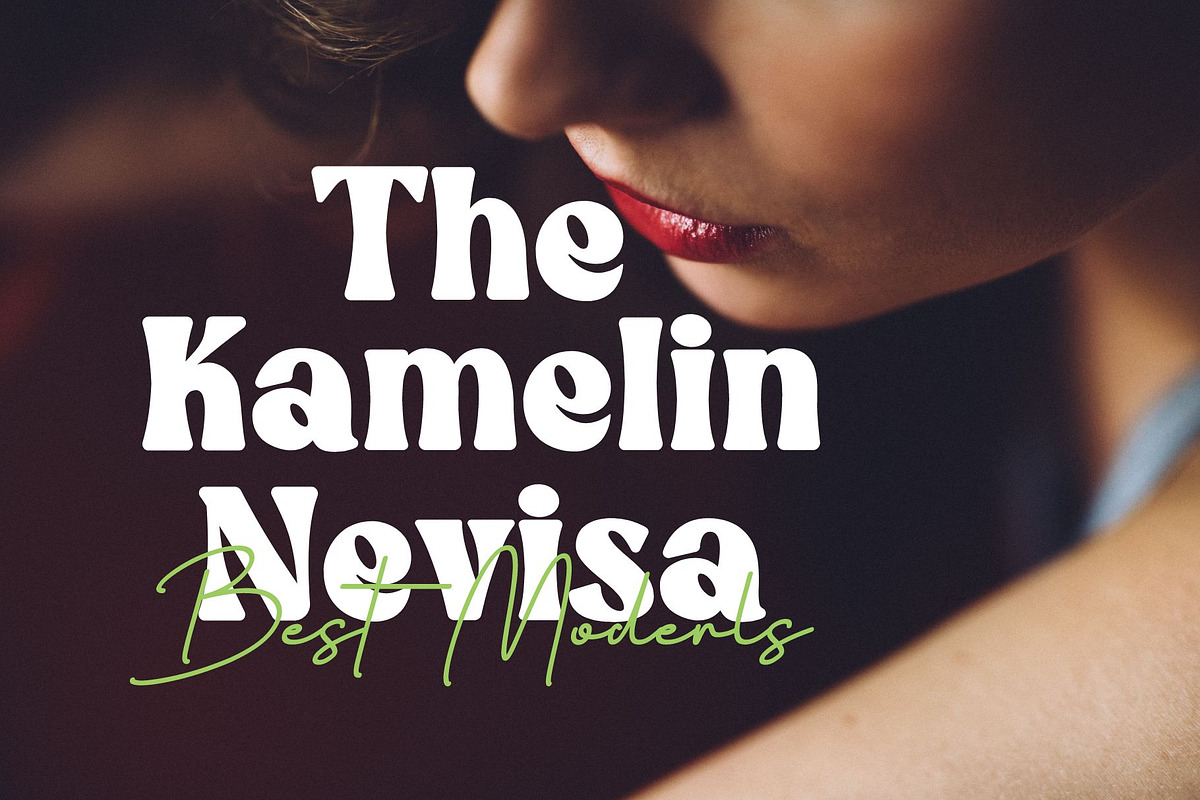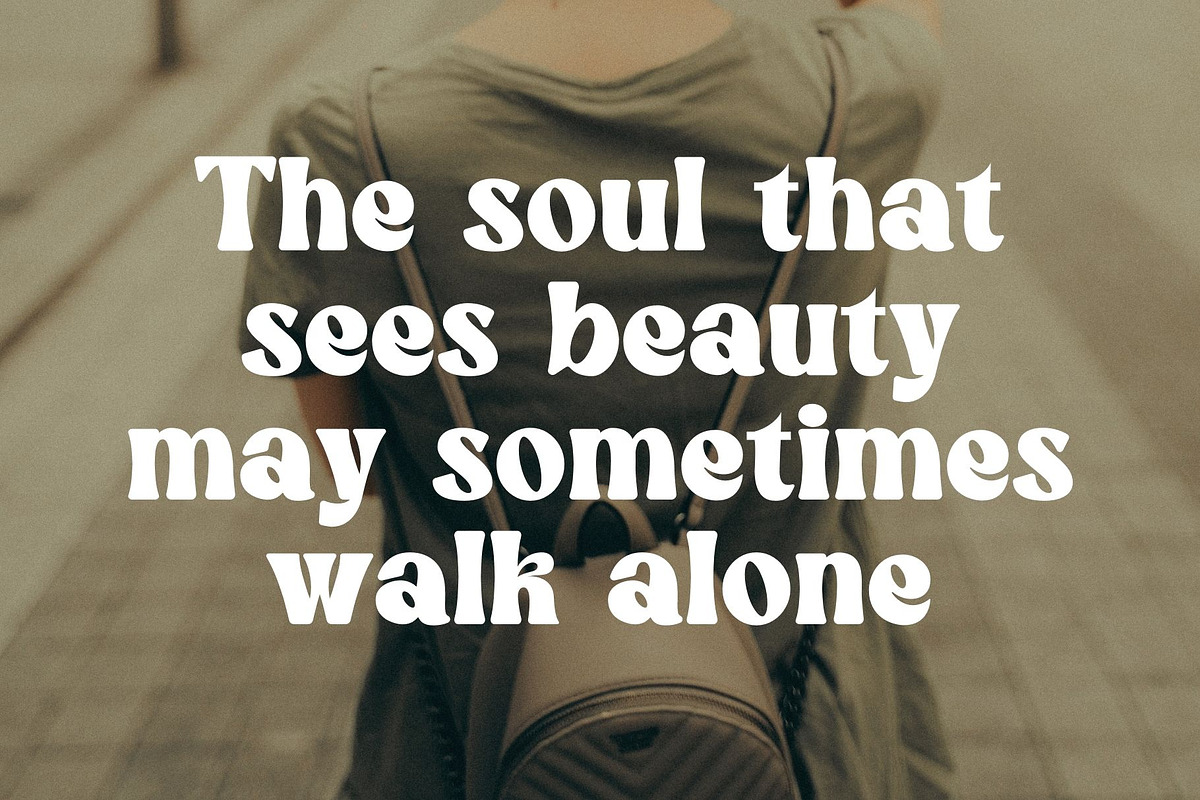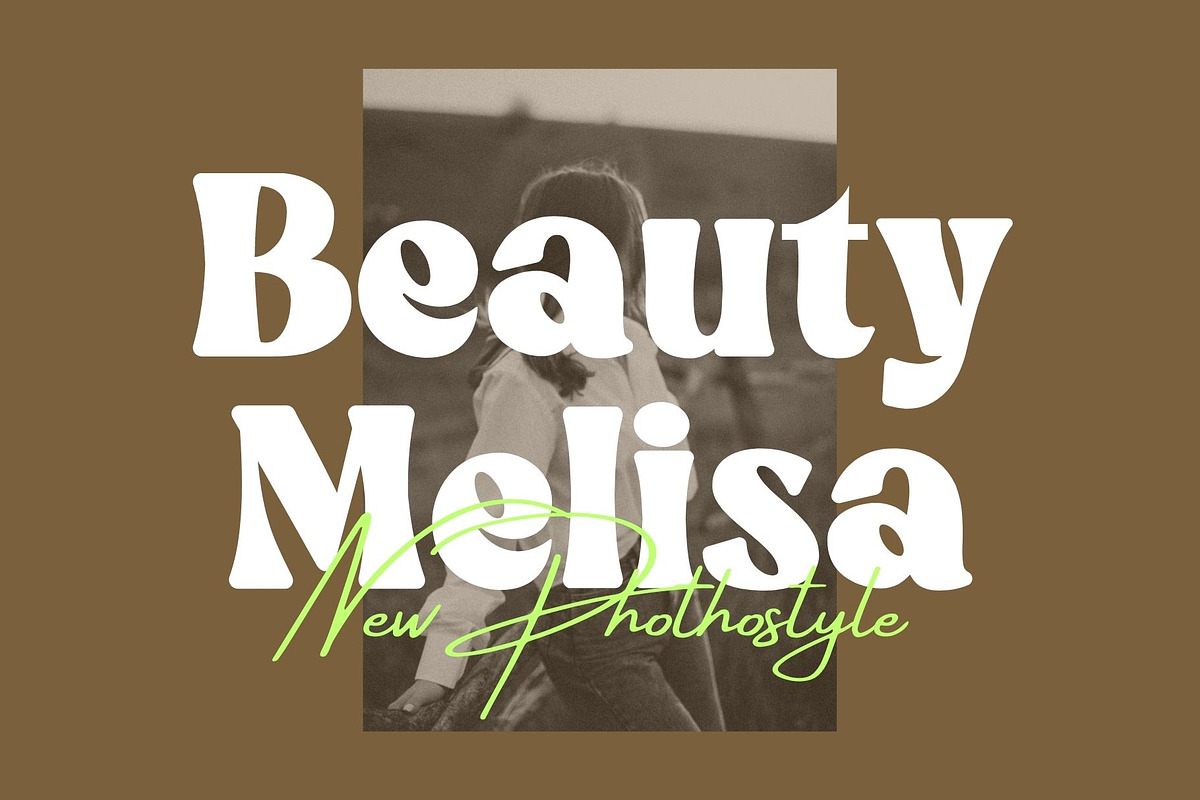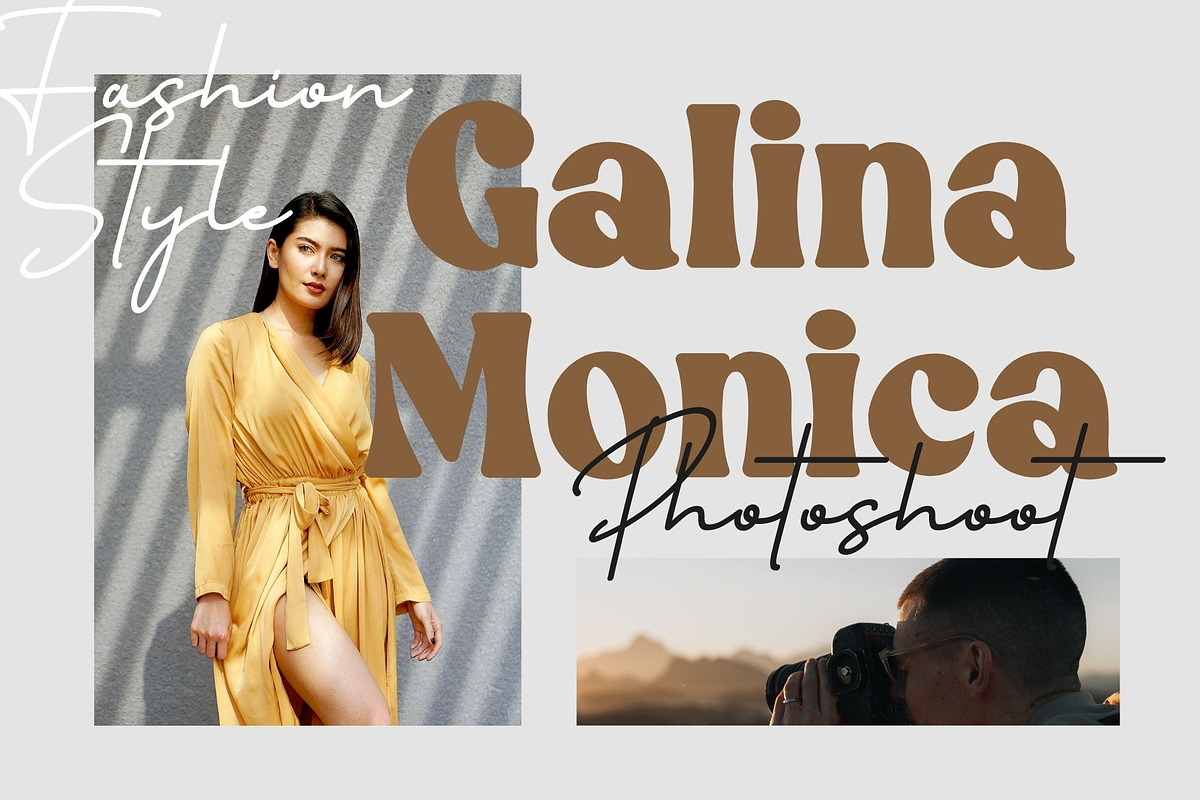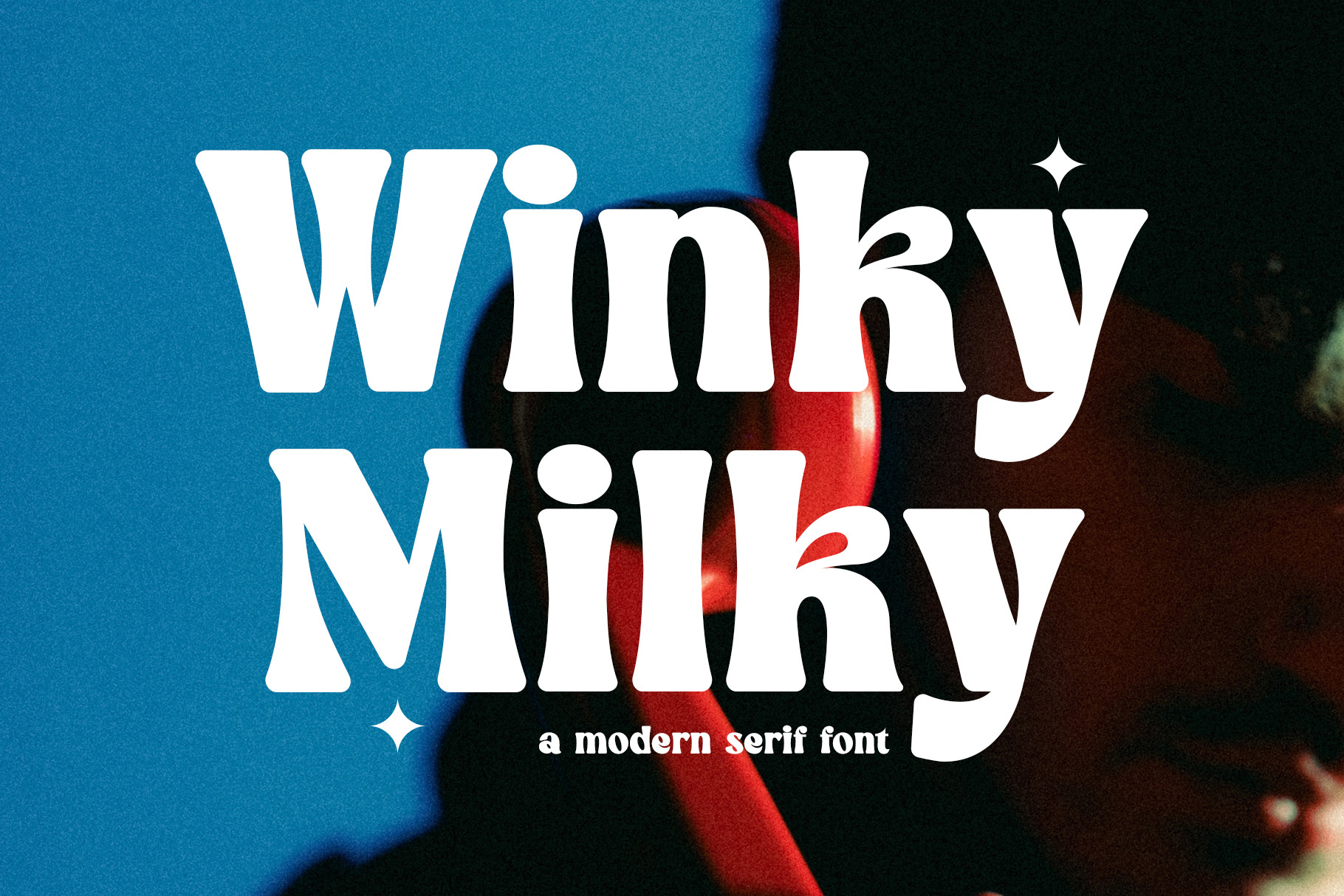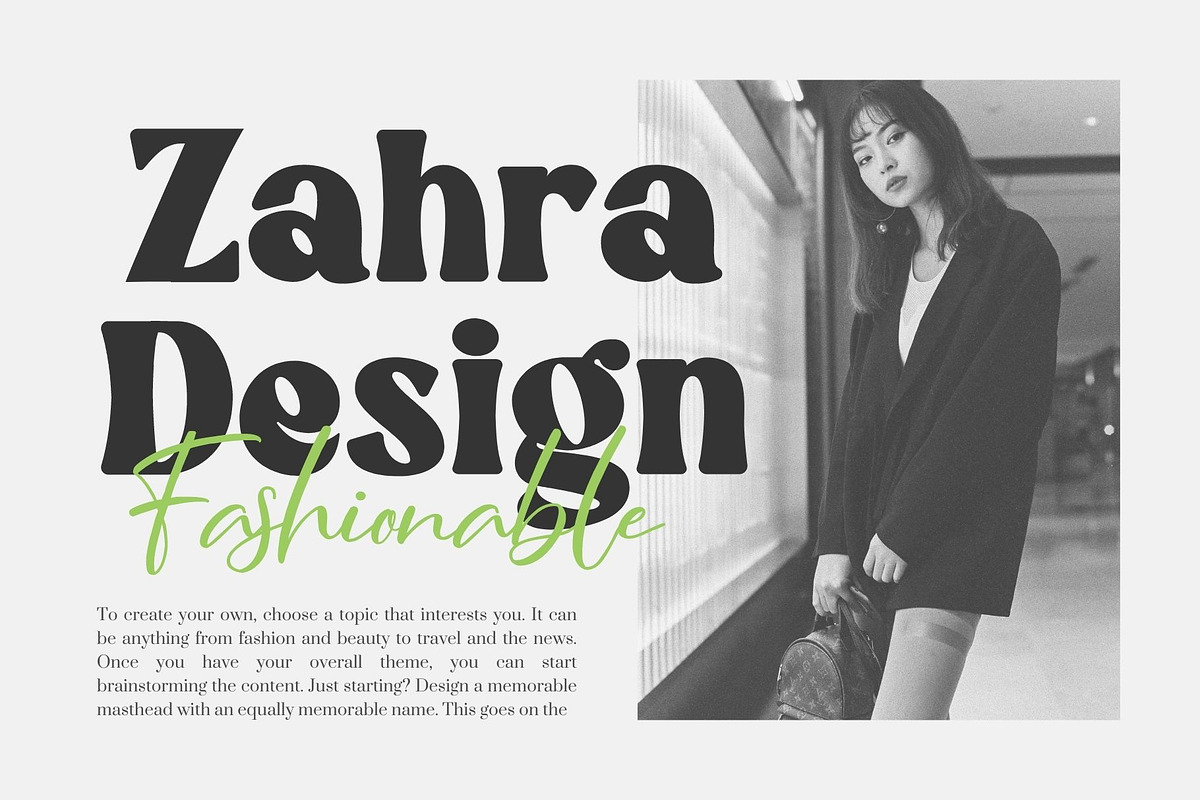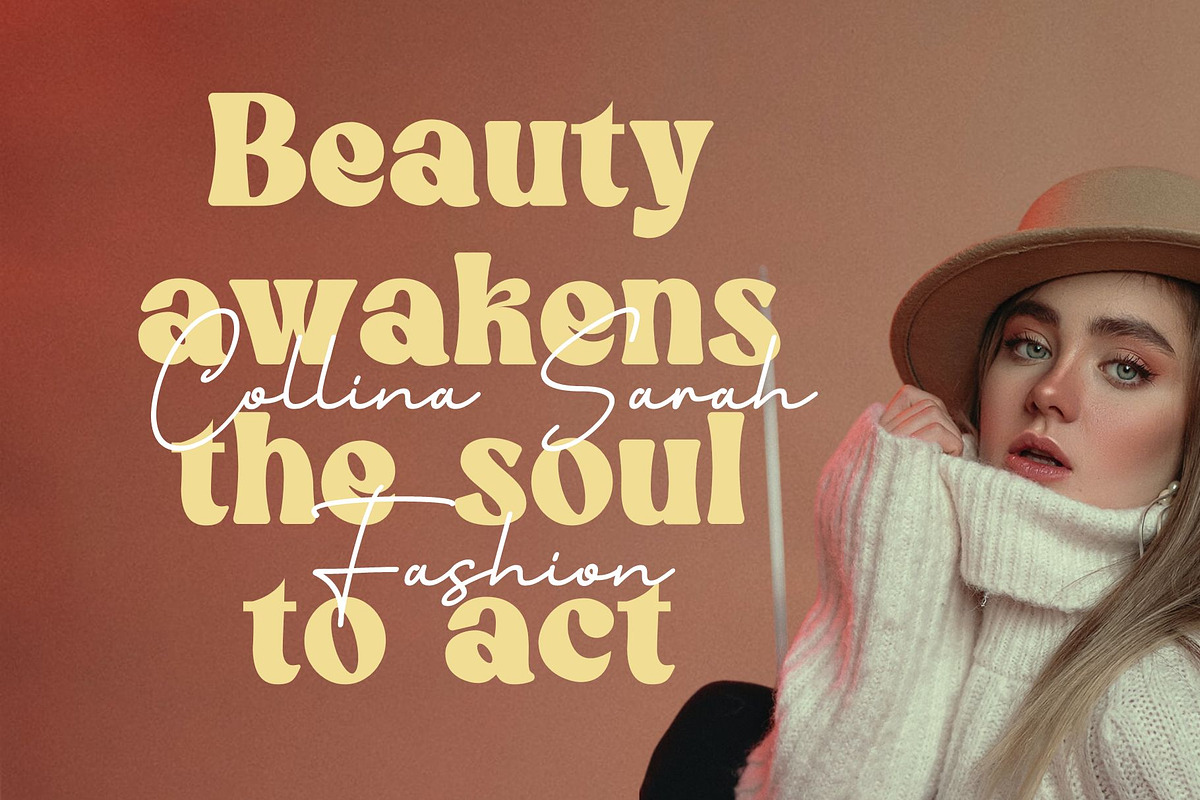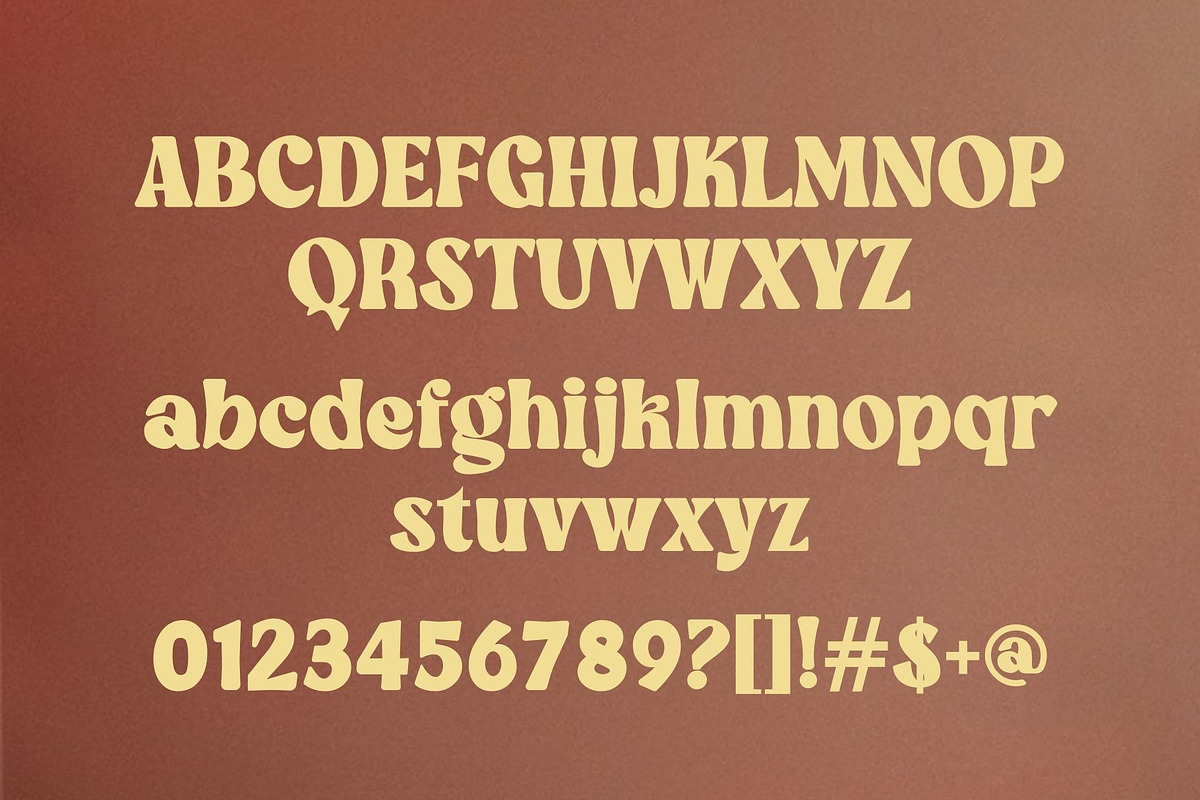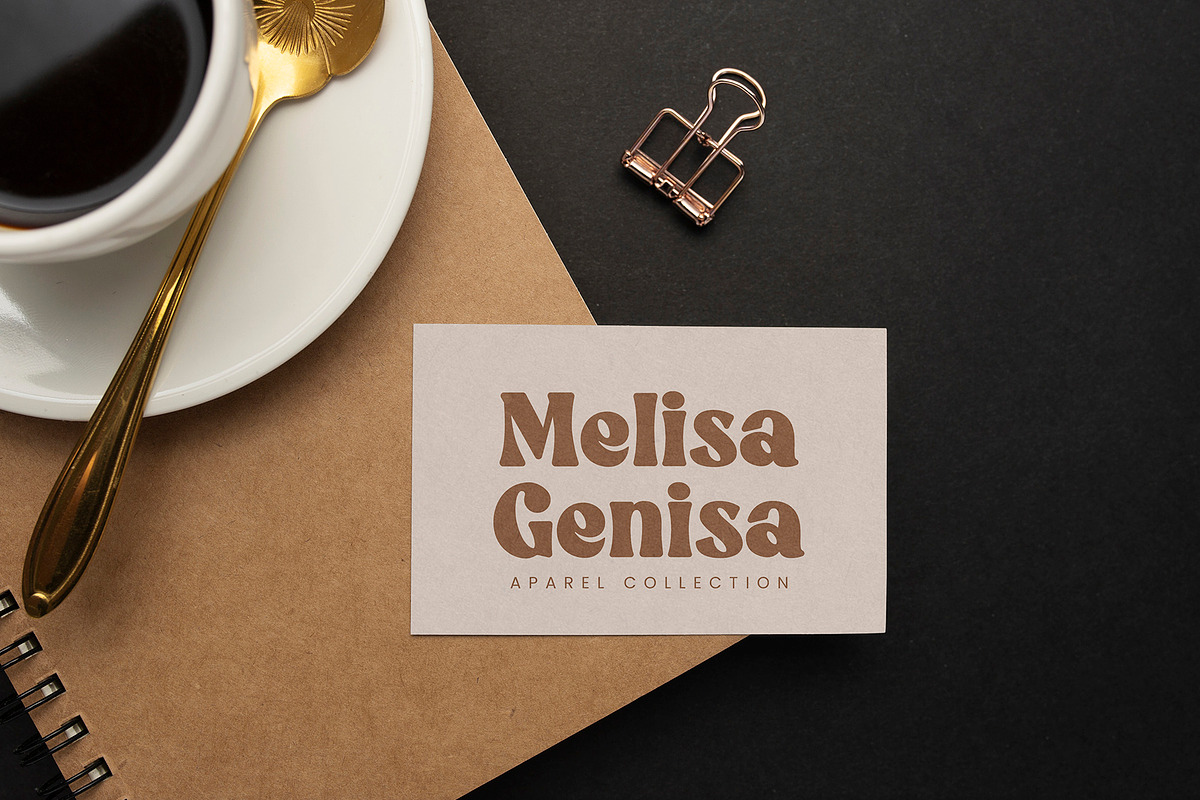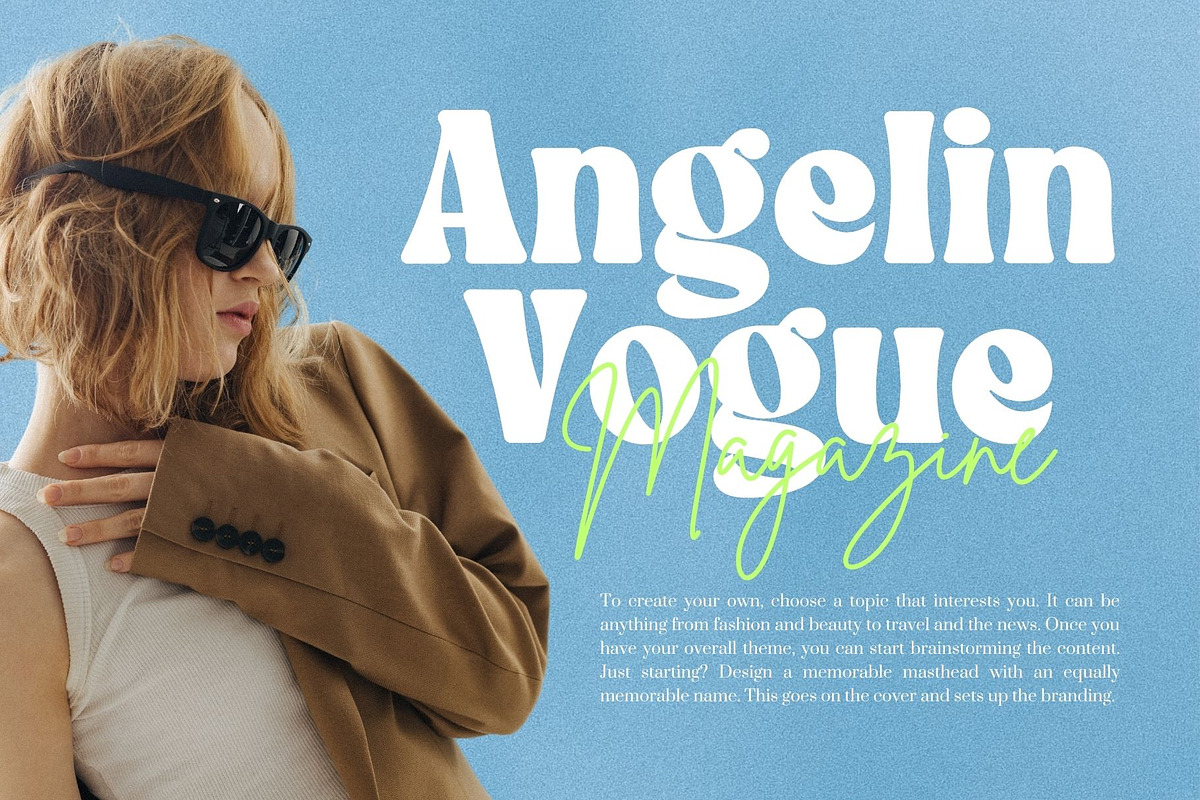
Winky Milky Serif Font
Winky Milky Serif Font Typeface inspired by the famous minimalist logo perfect for the purposes of designing templates, brochures, videos, advertising branding, logos, invitation, layout design, elegant crafting, beauty design and other